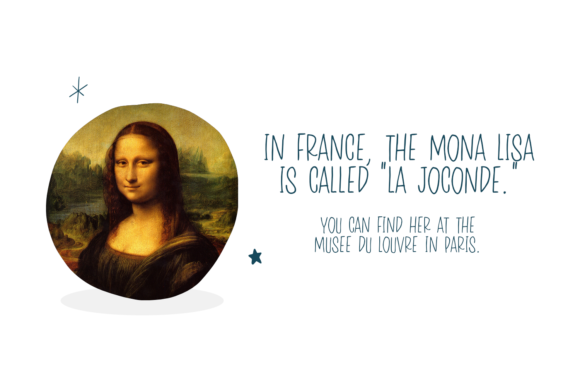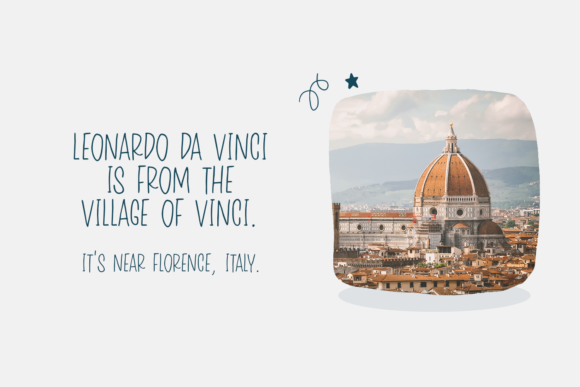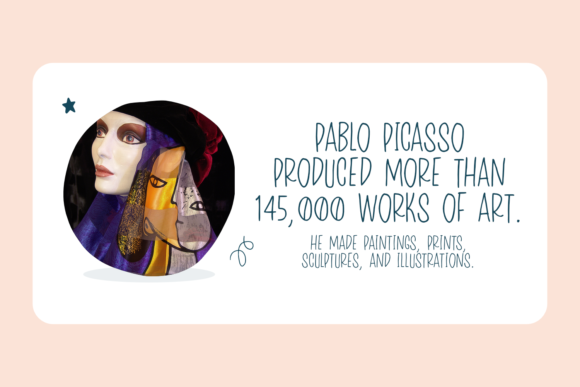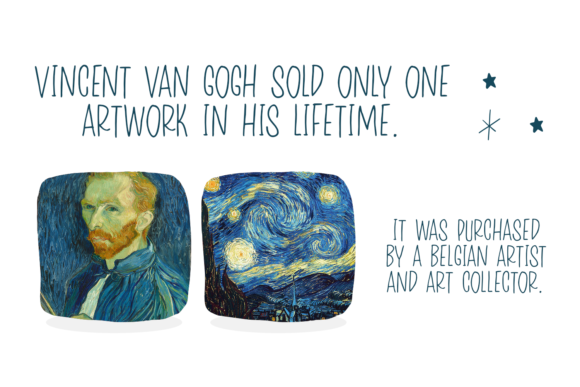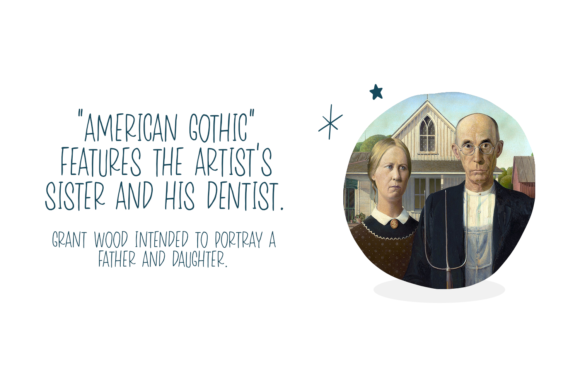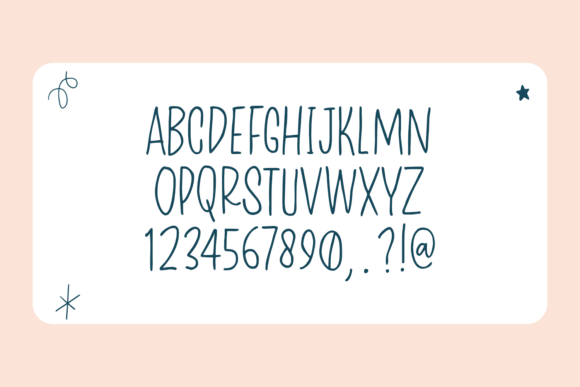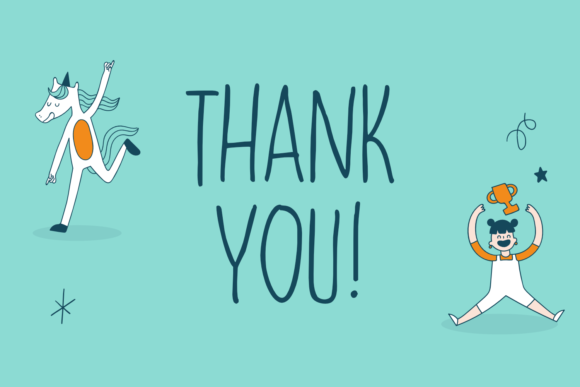
Maidenly Modesty Font
About Maidenly Modesty Font
Maidenly Modesty is a cute and simple lettered handwritten font that can be used for all chalkboard quotes or teaching material! Its authentic look will add a personal and realistic feel to your designs.